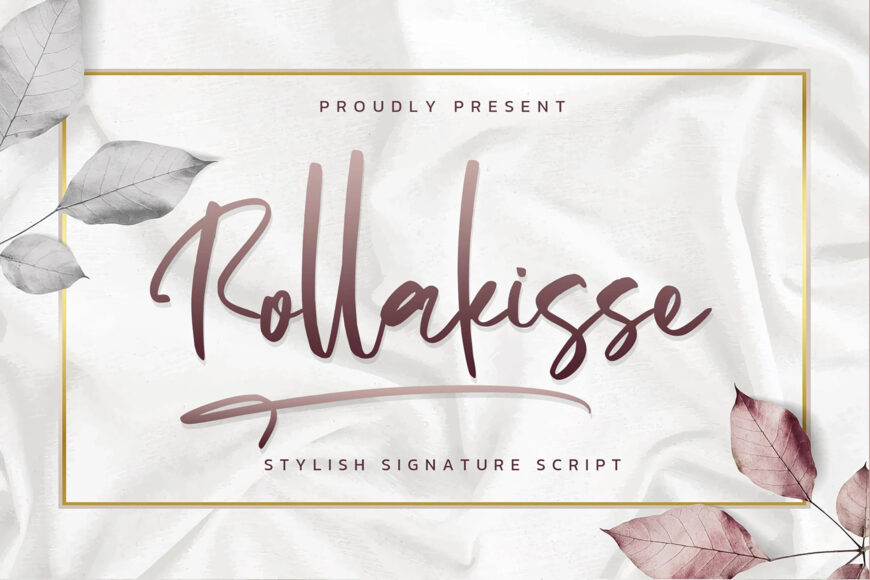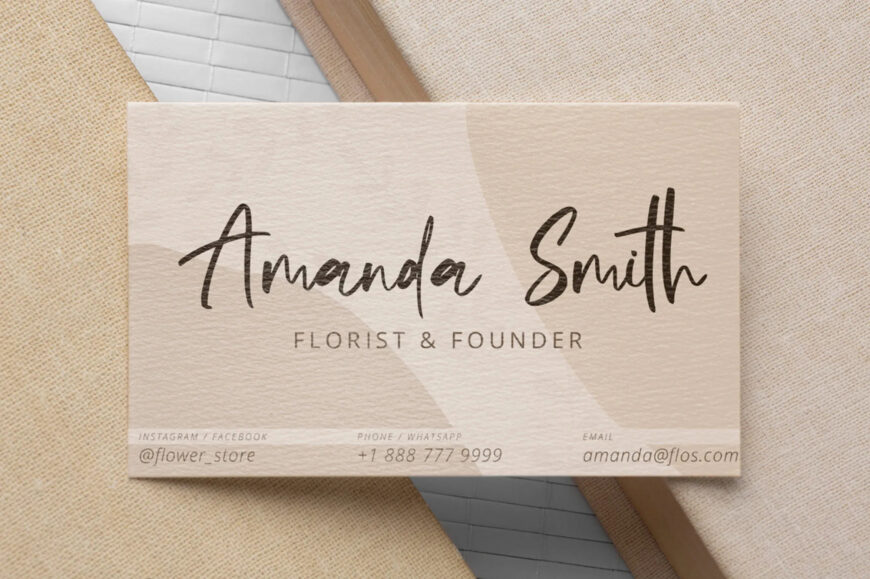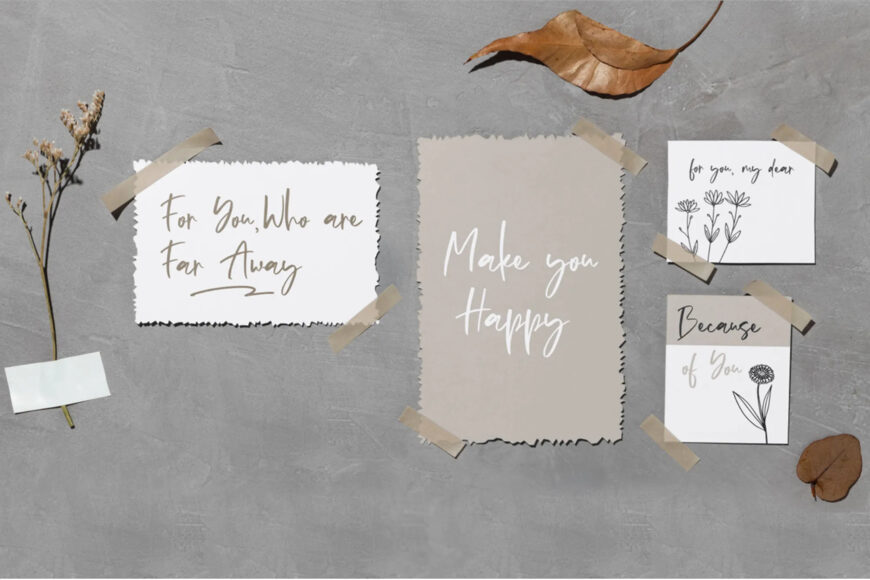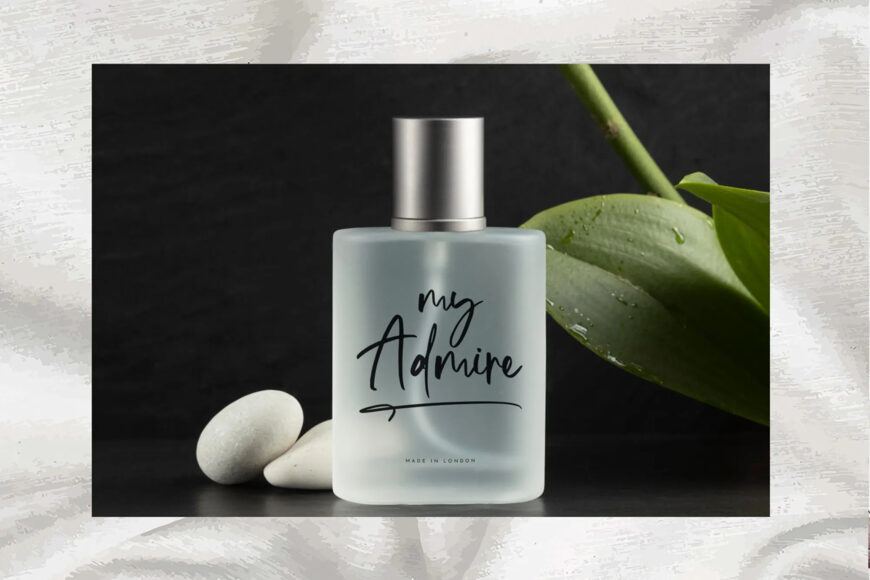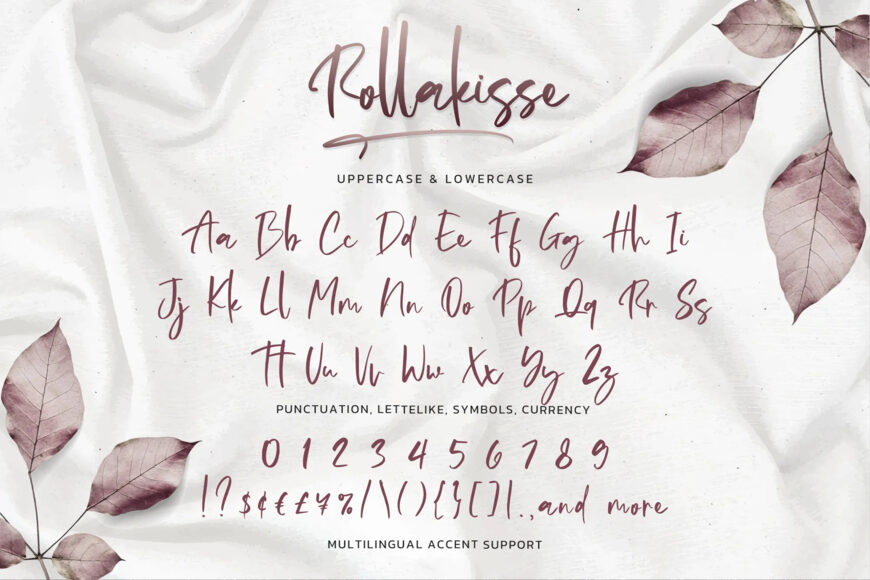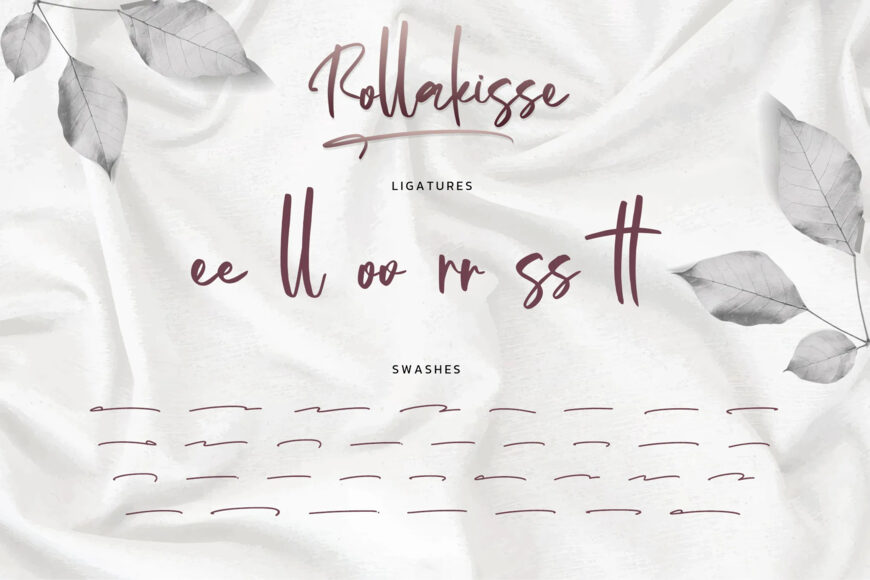
Rollakisse is an elegant signature script crafted with graceful strokes, flowing curves, and a beautifully expressive handwritten rhythm. Designed to capture the essence of sophistication and timeless charm, this typeface brings a refined personal touch to every design.
Its fluid letterforms, delicate swashes, and natural handwritten movement create a luxurious signature aesthetic—perfect for designs that seek elegance, femininity, and a polished modern feel.